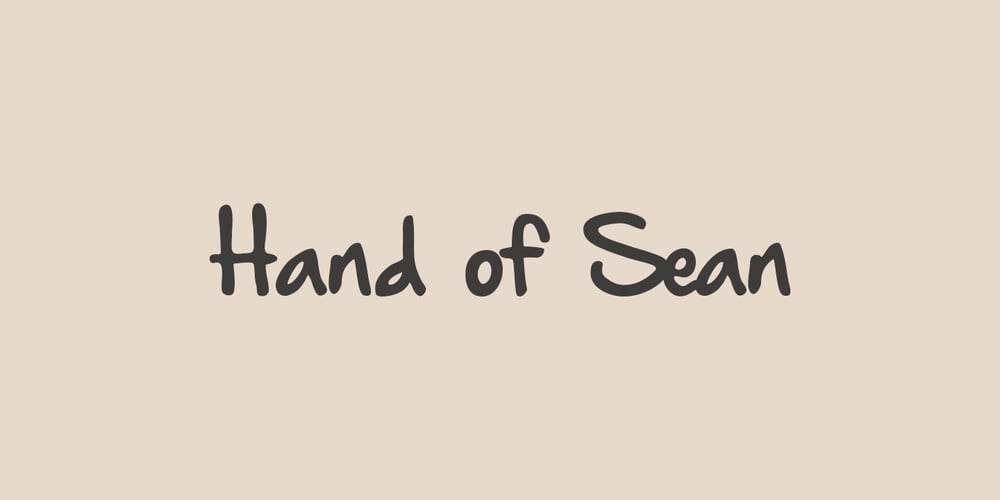
Hand Of Sean Font Family was designed by Sean Johnson and published by Sean Johnson. Hand Of Sean contains 1 styles and family package options. Hand Of Sean was created from the designer’s own handwriting in 2008 for a personal project, but was made available to the public and quickly became very popular. The font was updated in 2013 with redrawn glyphs, improved spacing, better kerning and OpenType features. NEW OpenType features: if you type two of the same letter, the font will automatically substitute with two slightly different characters to make the font look more natural. This also happens with words containing the same vowel either side of a consonant, such as ‘solo’ or ‘data’. Please note that OpenType features are only available in programs that support them, such as Illustrator, Indesign, Quark or Photoshop.